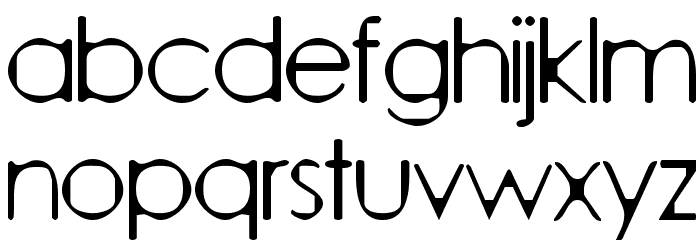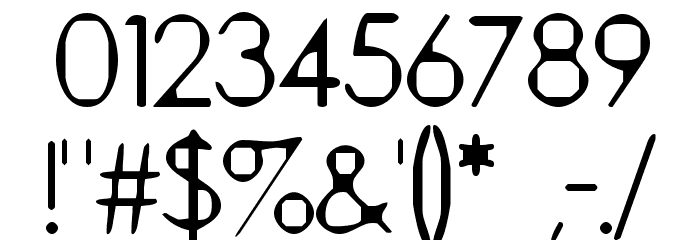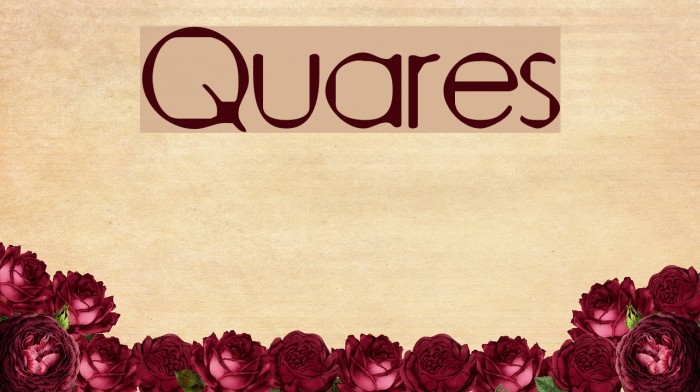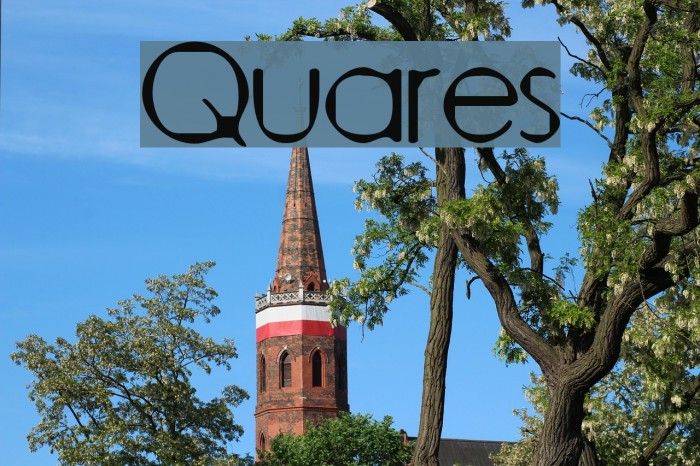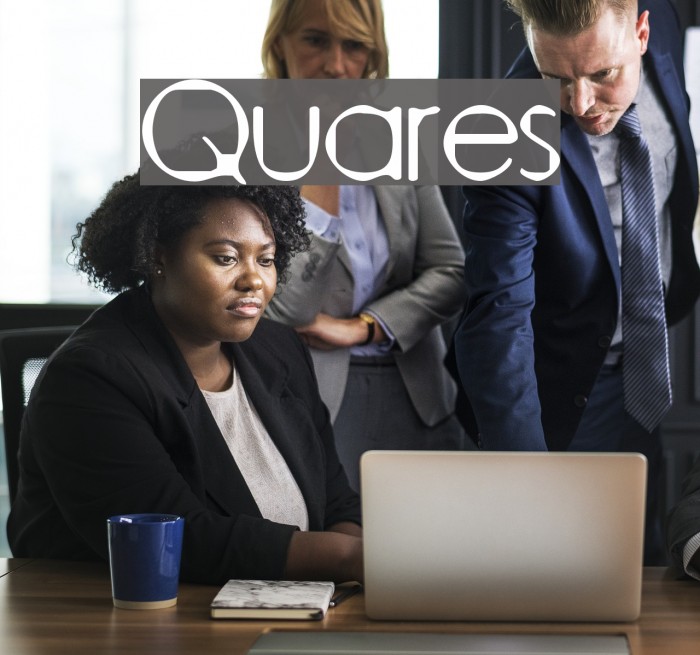
Quares Font
This font exhibits a modern and sleek design with a geometric structure. The characters are crafted with a consistent stroke width, giving a uniform appearance across both uppercase and lowercase letters. The numerals and special characters maintain this geometric style, ensuring a cohesive look. The font's clean lines and minimalistic approach make it versatile for various design applications. Its rounded edges soften the overall look, adding a touch of friendliness to the otherwise contemporary style. The spacing between characters is balanced, providing readability without compromising on style.
A modern, geometric font with consistent stroke width and rounded edges.
- Proposed Projects: Ideal for branding, digital interfaces, and modern print materials.
- Use Case: Headlines, Logos, Digital interfaces